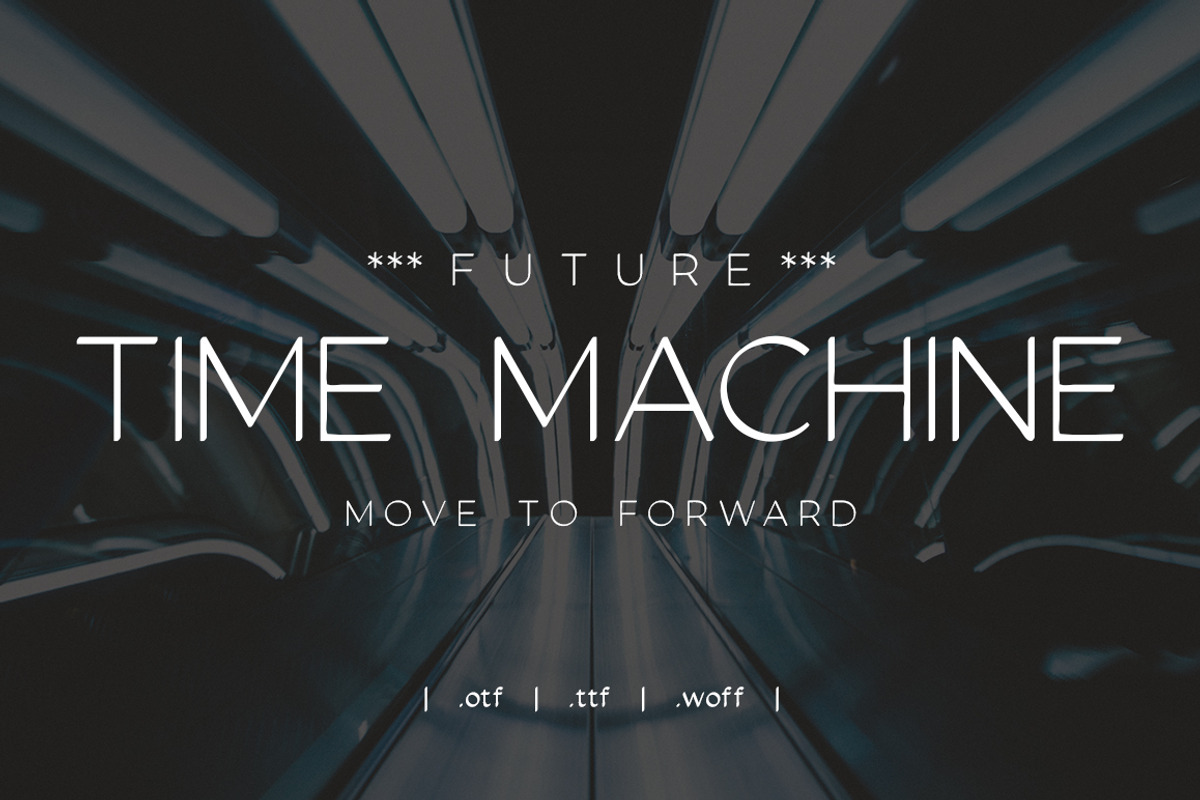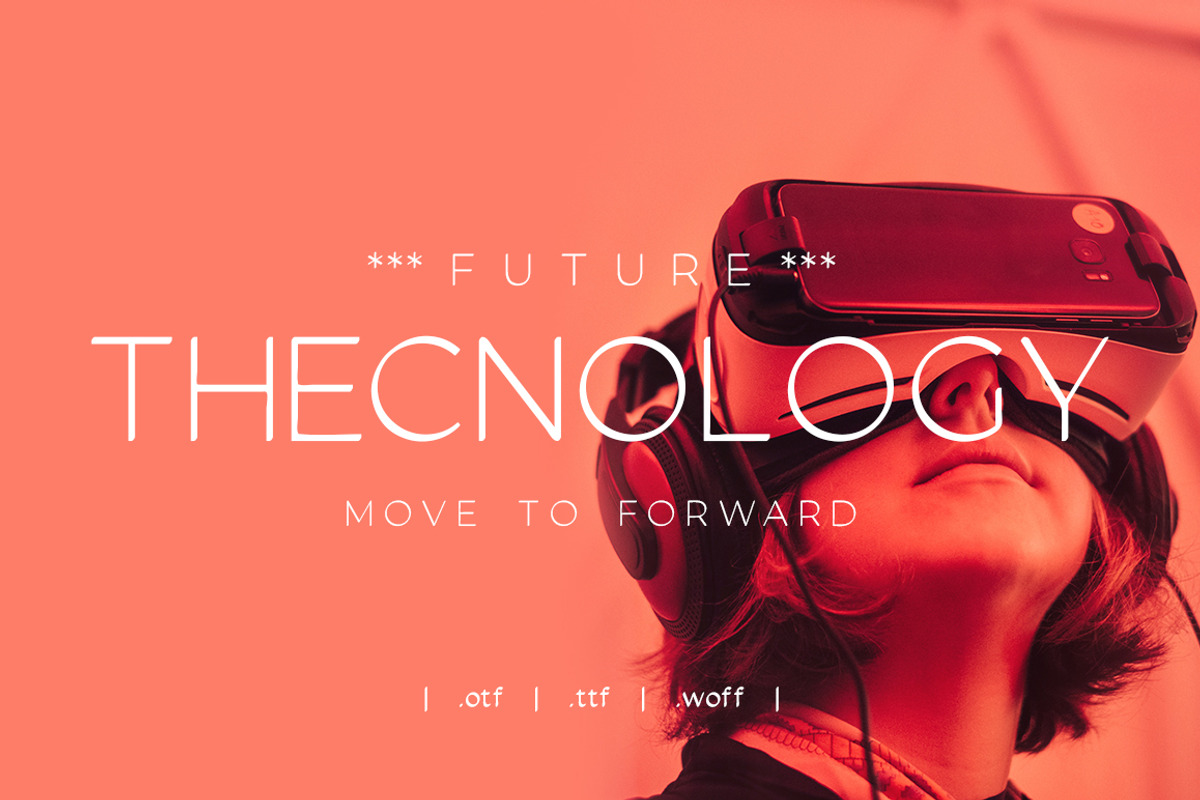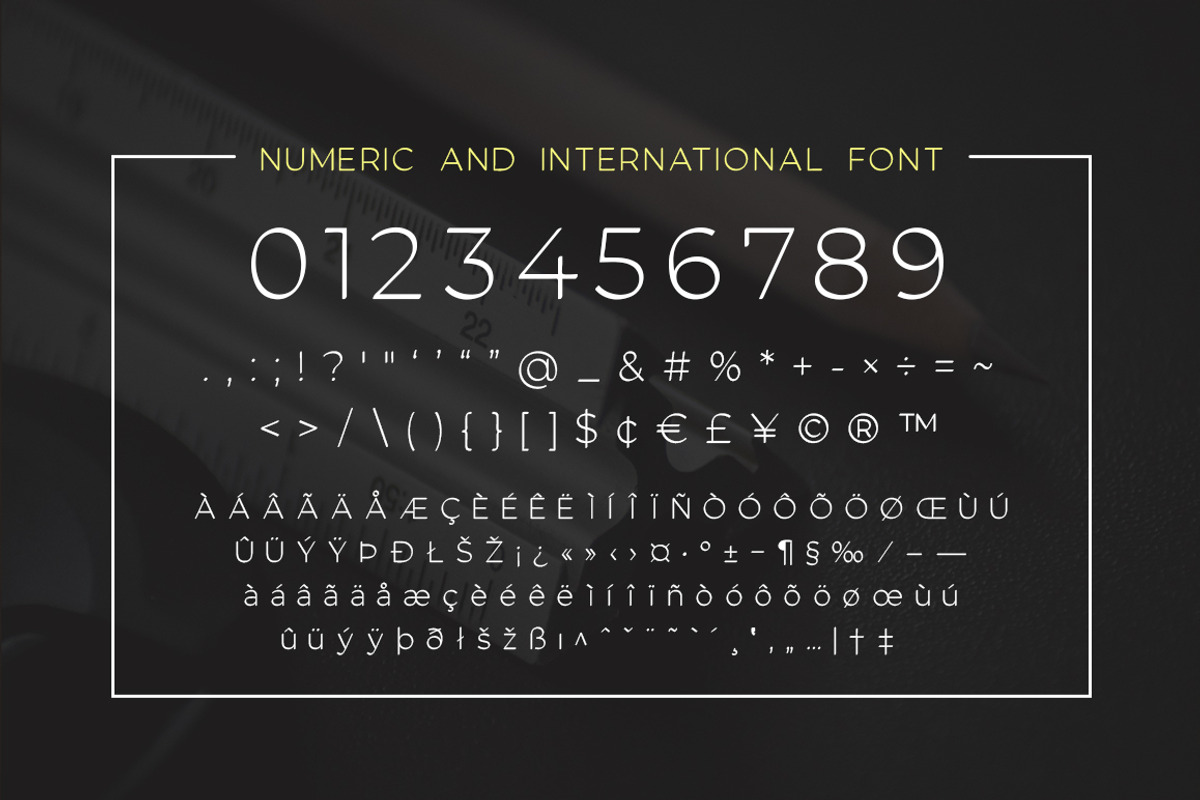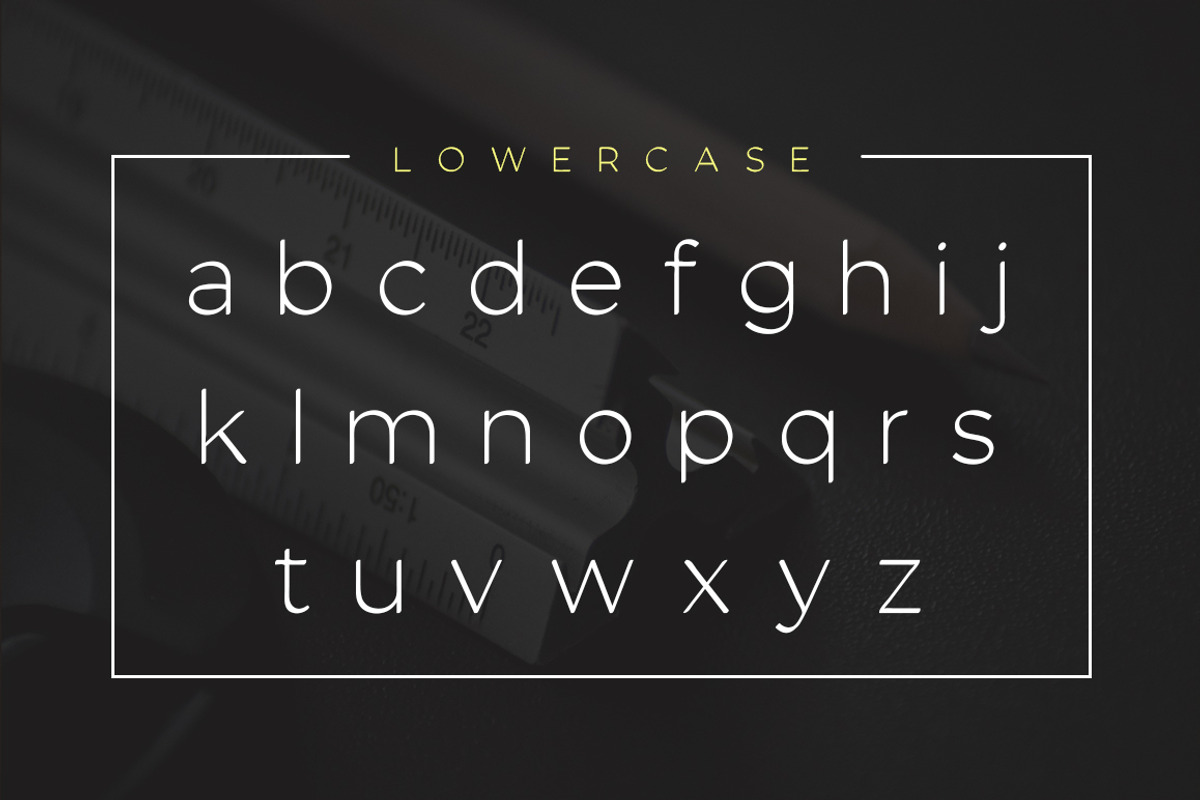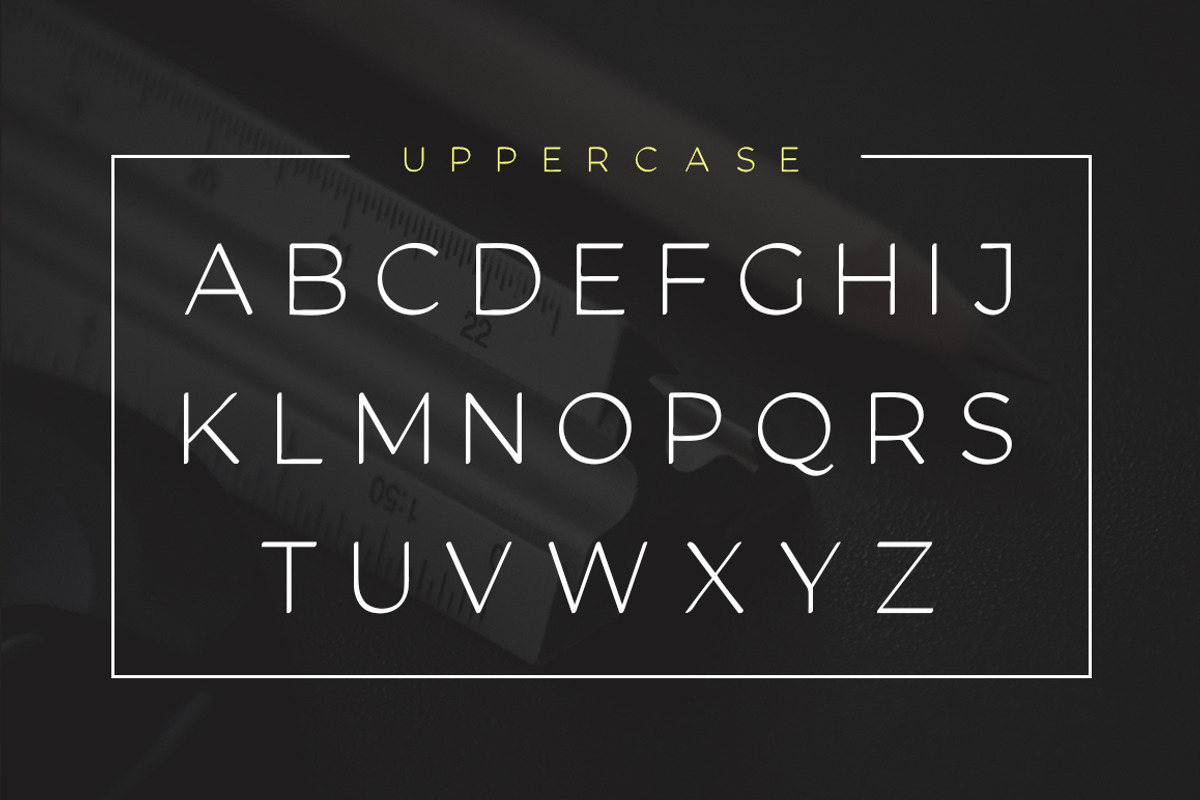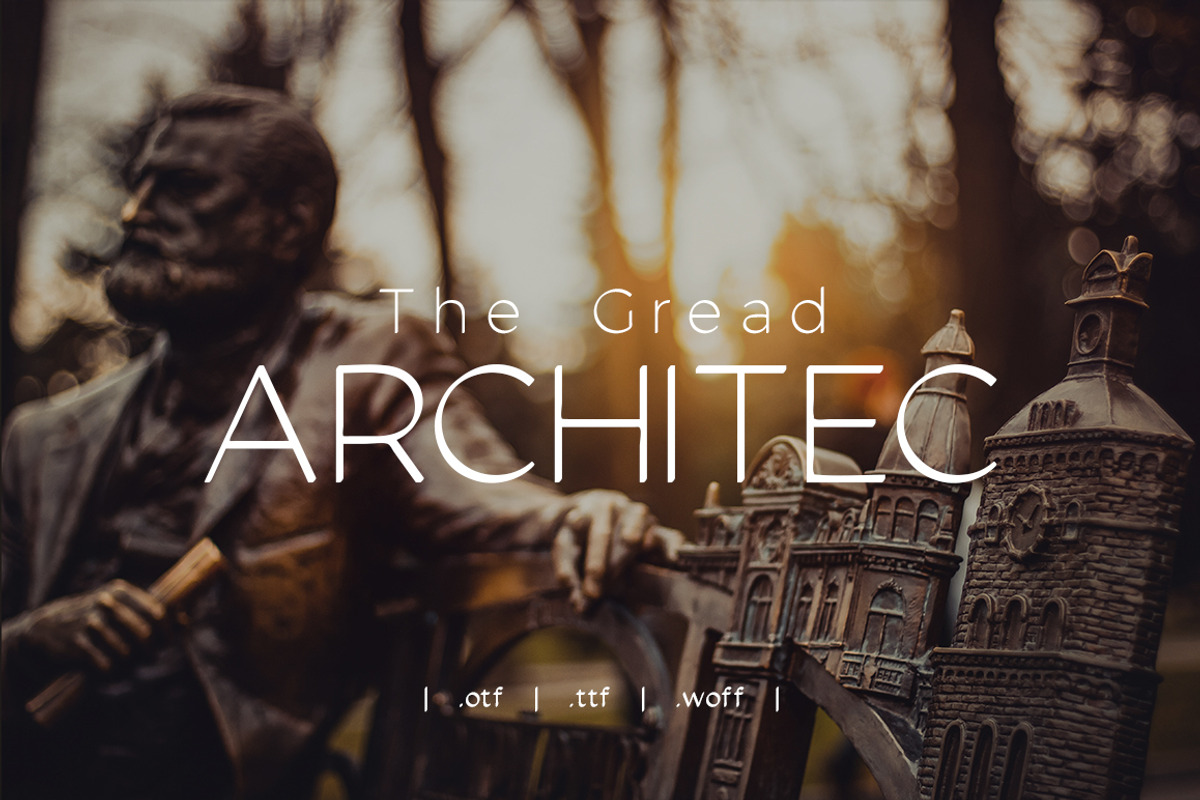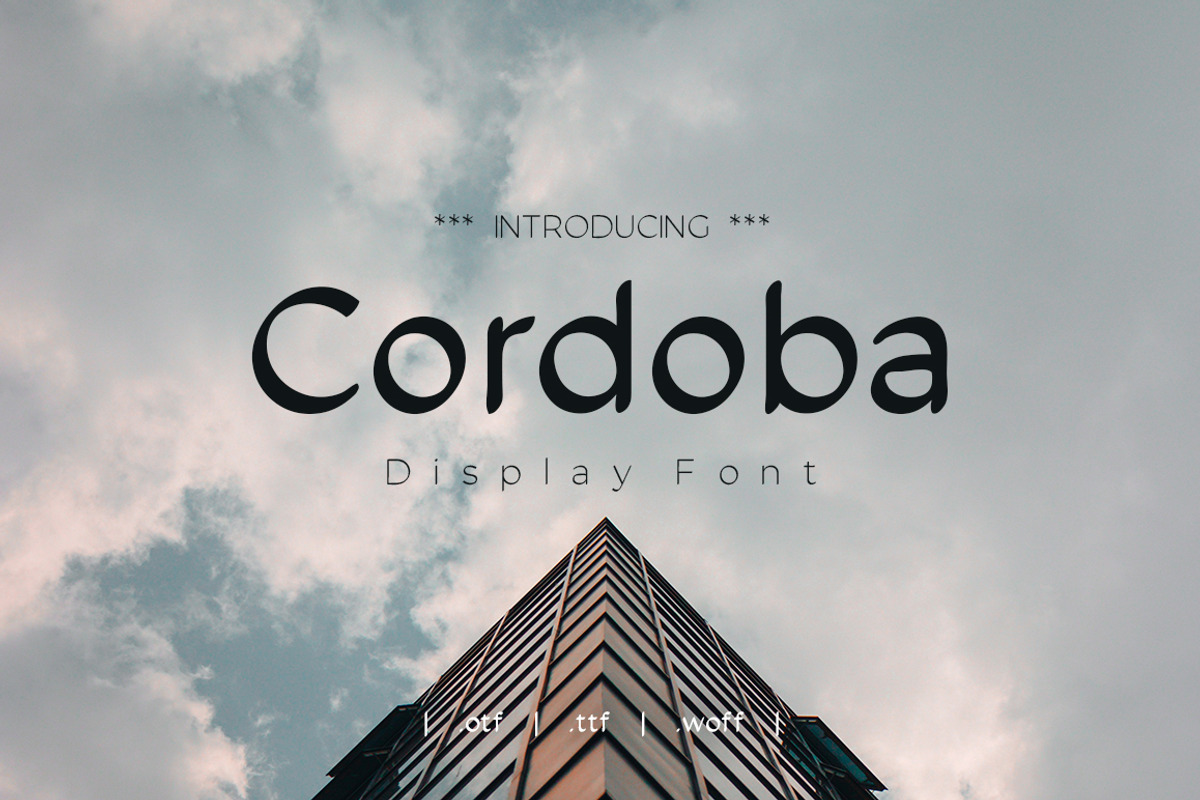
Cordoba Regular and Bold Font
Cordoba Display font very suitable for poster, for logo, music cover, clothing, and many many cool design projects. Cordoba Display font is uppercase and lowercas. Numeric and international font. Regular and Bold.
Why Cordoba Regular and Bold Font is worth a look
Cordoba Regular and Bold Font by yantodesign fits naturally into Branding, posters, packaging, typography.